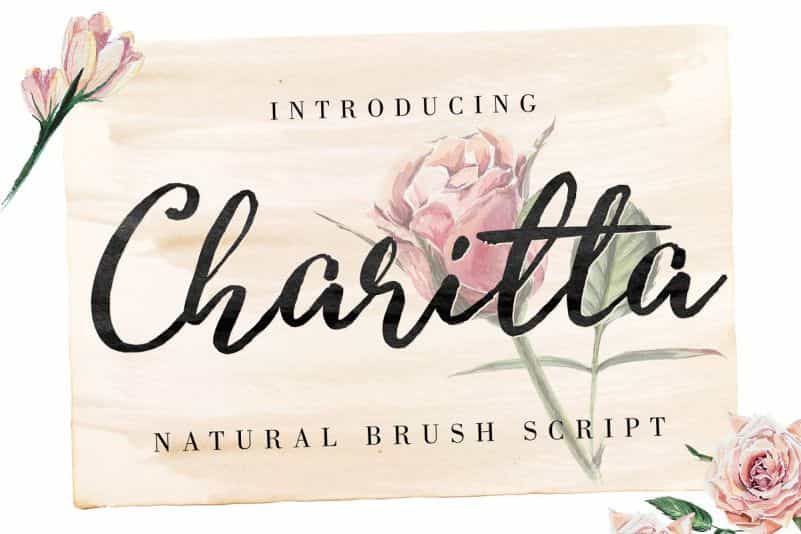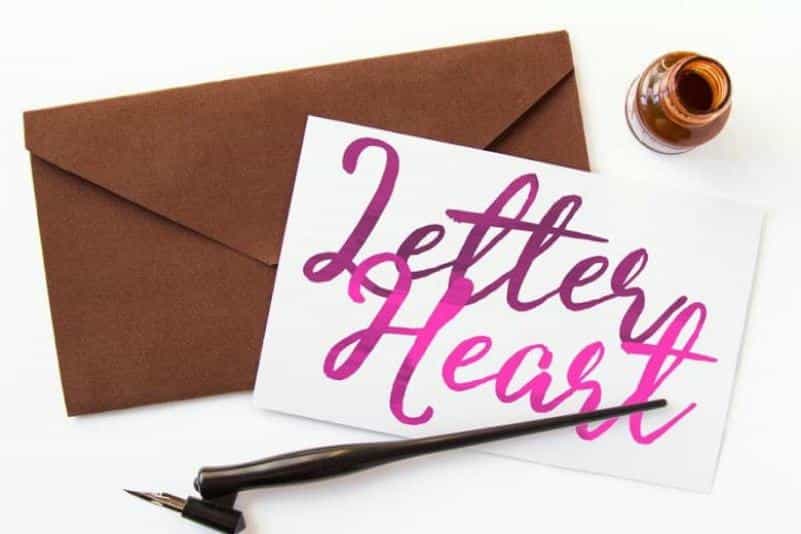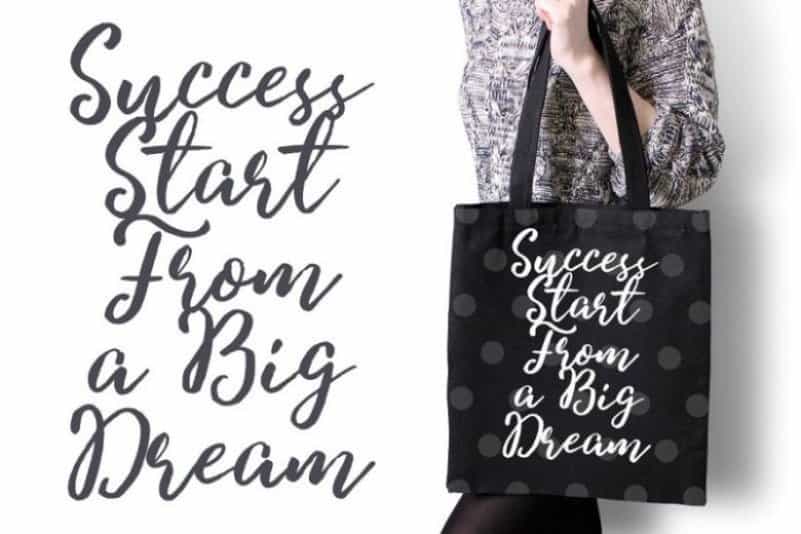
Discover Charitta Organic Script Font, part of the Brush collection—a versatile and unique font perfect for adding a personal touch to your projects. Download it for free and enjoy crafting designs with style, from invitations to social media posts. This font is available exclusively for personal use, giving you the freedom to create without limits. Unlock your creativity with Charitta Organic Script Font today!
Introducing Charitta Brush Font. The Charitta Organic Script Font is a font that was created using a brush pen and it is an organic one. This is a dry brush font. It lets you to do mind-blowing and effortless hand-lettering in just a second. The came out with the lowercase as uppercase alternate. Perfect for the logo, quotes, product label/packaging, fashion letter advertising poster merchandise apparel etc.